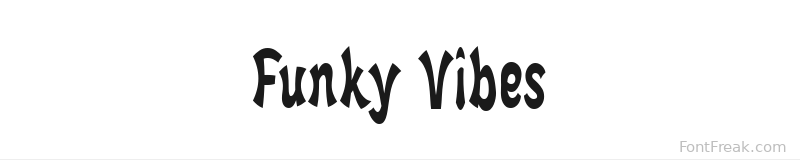
Funky Vibes
Funky Vibes is a captivating display font designed by Misti Hammers, perfect for those looking to add a playful and energetic touch to their projects. This font falls into the decorative category, characterized by its unique, hand-drawn appearance that exudes a sense of fun and creativity. The strokes are uneven yet balanced, giving it a lively feel, while the medium contrast between thick and thin lines adds a dynamic quality. The spacing is generous, enhancing readability without losing the whimsical essence that defines this font.
Funky Vibes is an excellent choice for various use cases. It shines in settings such as vibrant wedding invitations, where a touch of personality is desired. Additionally, it works well for movie posters, particularly for independent films that aim to attract attention with an artistic flair. Restaurant menus can also benefit from this font, especially for eateries that want to convey a casual, friendly atmosphere. Moreover, it is ideal for social media graphics and promotional materials aimed at younger audiences, making it a favorite among content creators looking to engage followers with lively typography.
The target audience for Funky Vibes includes graphic designers seeking to incorporate a distinctive font into their work, small business owners aiming to stand out with unique branding, and content creators who wish to infuse their projects with character.
What sets the Funky Vibes font apart is its ability to effortlessly blend creativity with functionality. This font captures attention while remaining versatile enough for various applications, making it a valuable addition to any designer's toolkit. For those interested, the Funky Vibes font free download offers an opportunity to explore its potential without any cost, allowing users to elevate their designs with this energetic typeface.